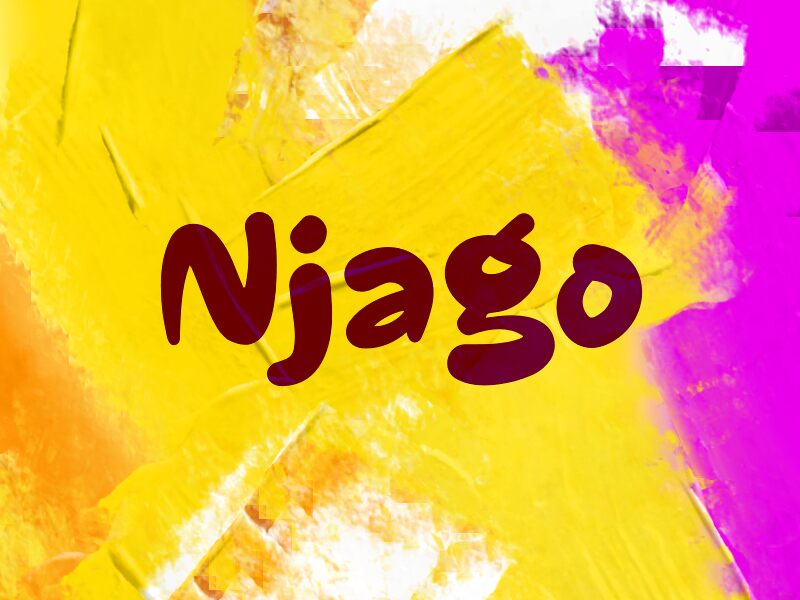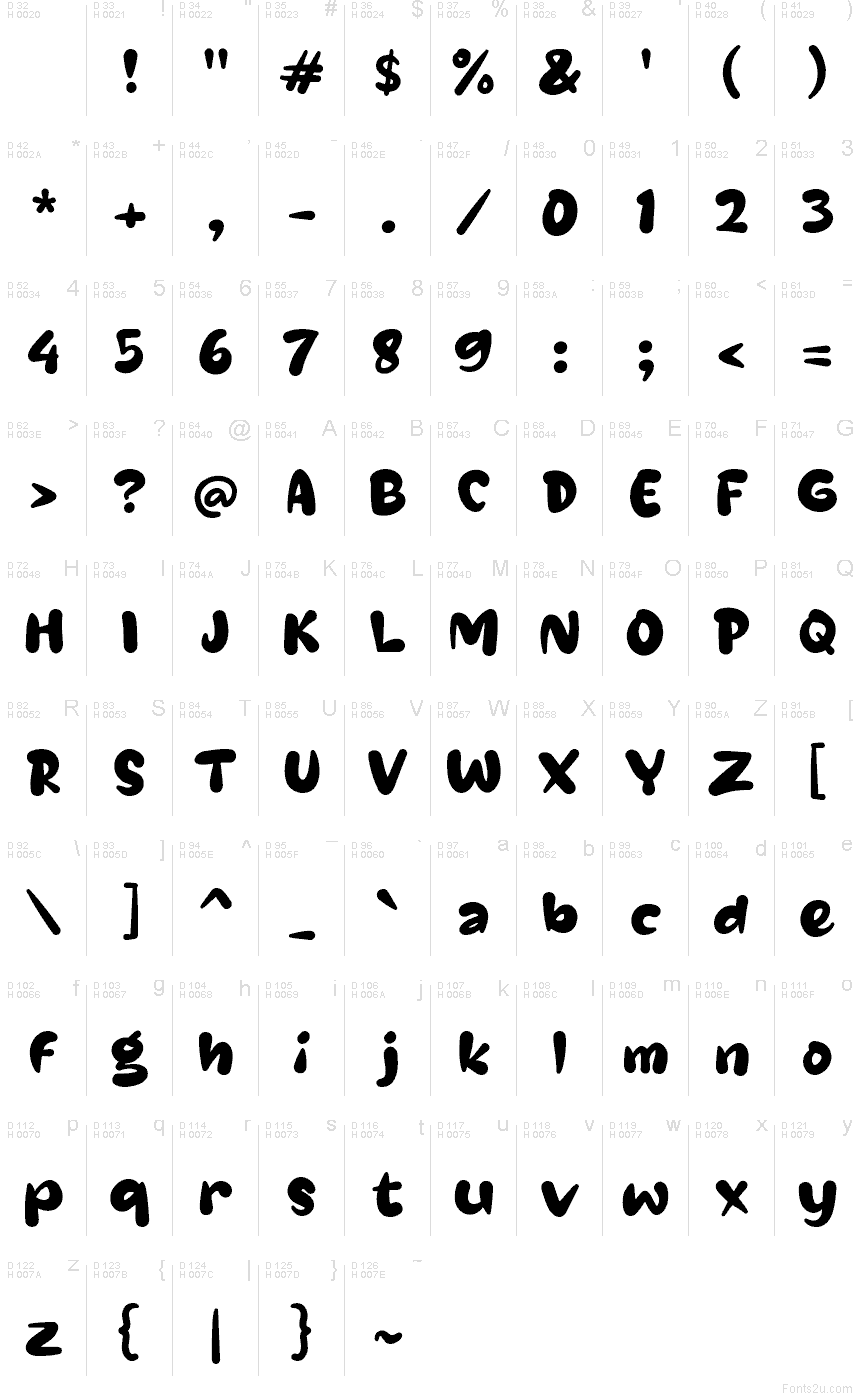
Njago
Njago font by wep is a free cartoon display typeface with bold, inky curves that look like they’ve been drawn straight from a marker pen. Its chunky, rounded shapes and bouncy rhythm give every word a friendly, animated energy, while the tight, slightly irregular spacing keeps letters feeling hand-drawn rather than polished. There’s a softness to the outlines that makes Njago feel playful and approachable, even at larger sizes.
Using Njago, you can instantly bring character to kids’ book covers, game titles, YouTube thumbnails, birthday invitations, snack packaging, playful logos, and social media graphics. This free font shines when used big and bold, where its bubbly silhouettes can really show off. For a clean contrast, pair Njago with a simple geometric sans serif in smaller supporting text.